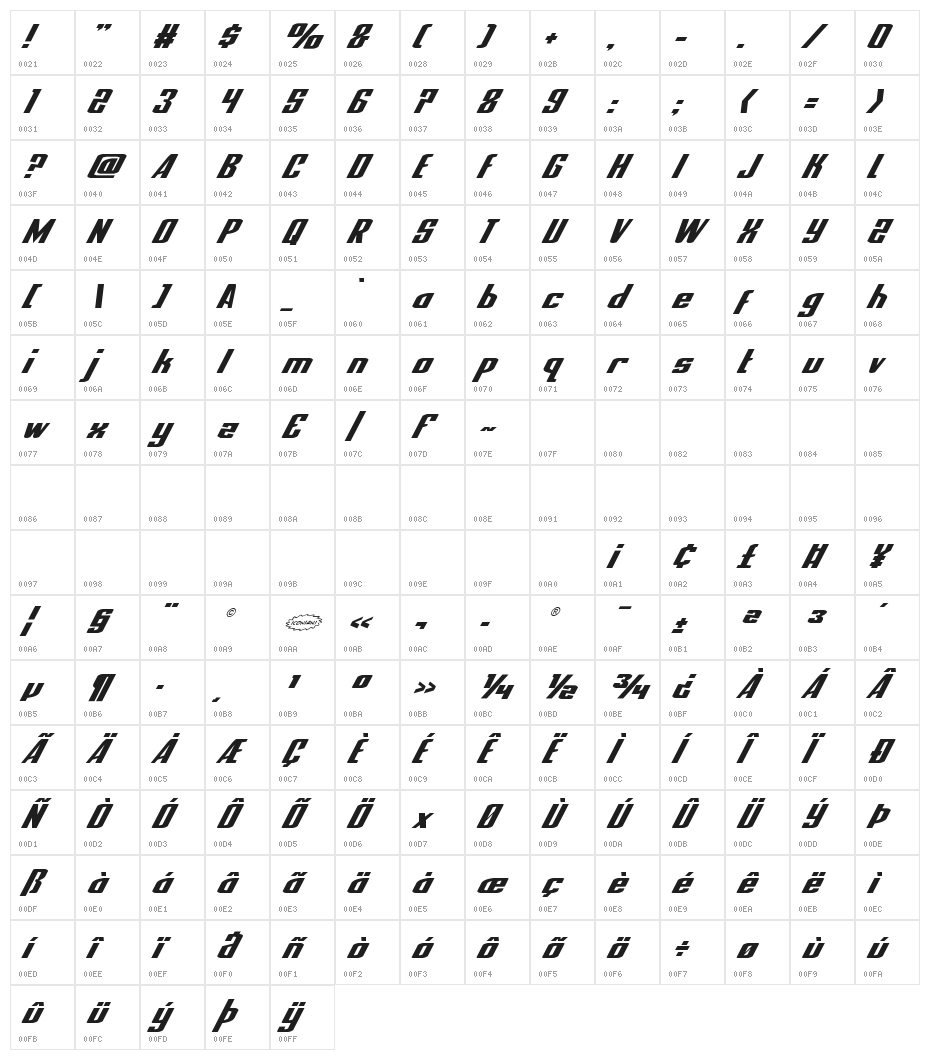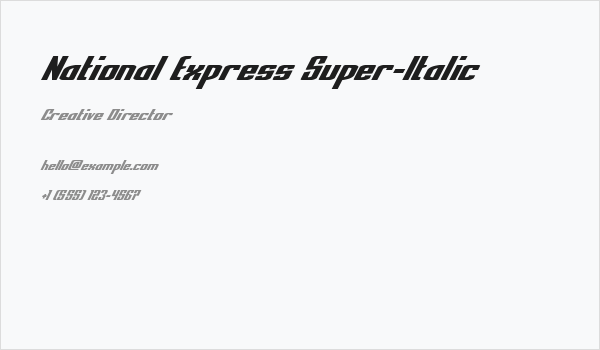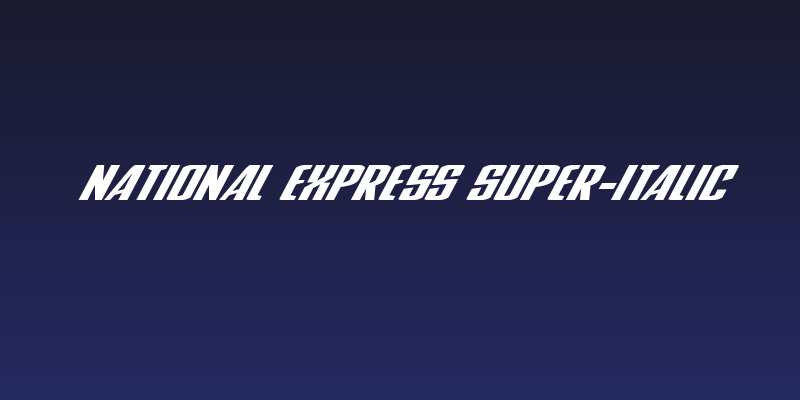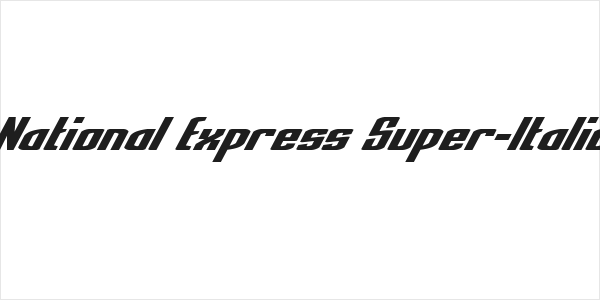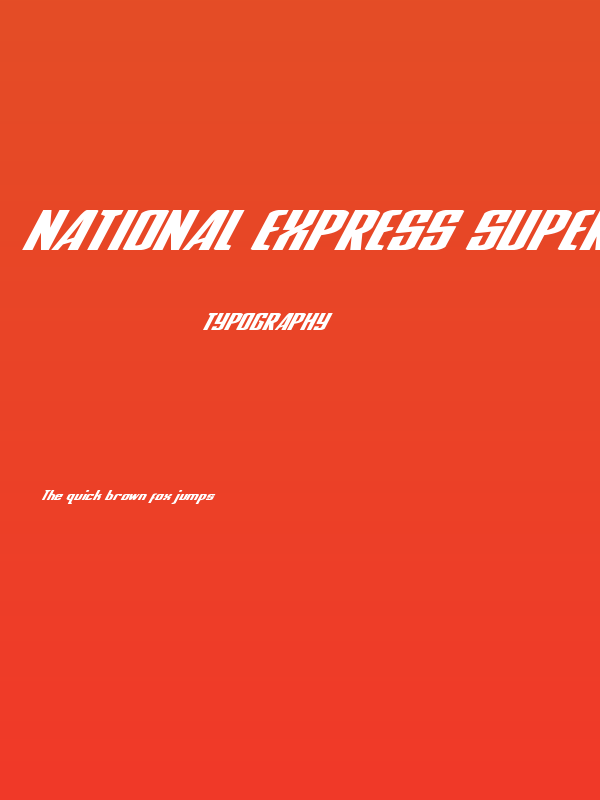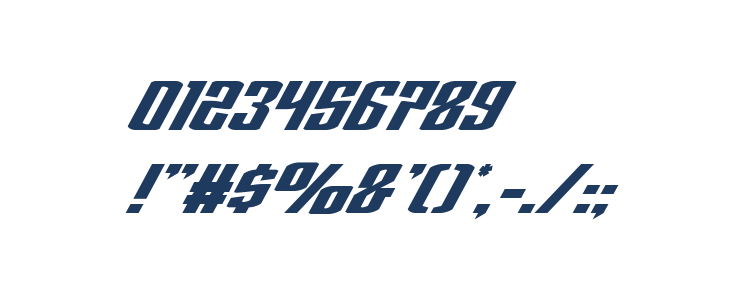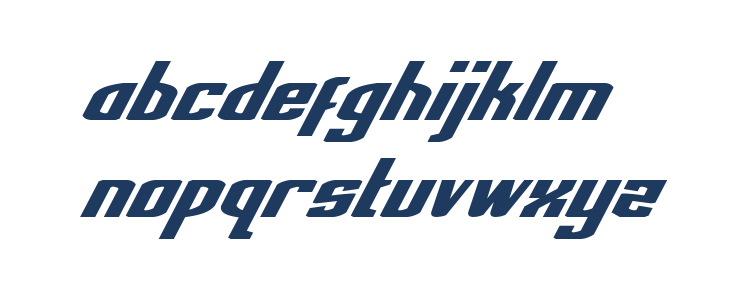
National Express Super-Italic Font
National Express Super-Italic Description
This font features a bold and dynamic italic style, characterized by its sharp angles and strong geometric forms. The letters are slanted, giving a sense of speed and movement, which is enhanced by the thick, consistent strokes. The uppercase and lowercase letters maintain a cohesive look, with the uppercase being slightly more angular. Numbers and special characters follow the same design principles, ensuring uniformity across all elements. The font's boldness and slant make it particularly eye-catching, suitable for projects that require a strong visual impact.